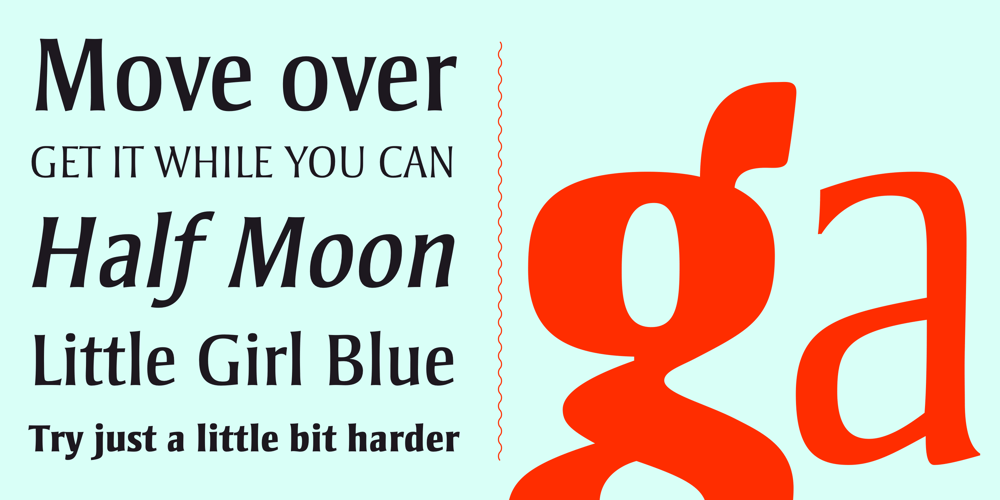
Strayhorn MT Font Family was designed by Michael Harvey and published by Monotype. Strayhorn MT contains 8 styles and family package options. Strayhorn is a sans serif development of the popular typeface family, Ellington. Although classified as a sans serif, the Strayhorn font family has markedly flared stems and calligraphic terminal treatment. A fairly condensed face with vigorous letter shapes, Strayhorn makes an eye-catching display face and an economical, legible text type. The contrast between thick and thin strokes is more apparent than in most sans serif designs, resulting in an open, rather striking appearance on the page. Strayhorn is ideal for use in advertising, flyers, labels and packaging. It will also make a refreshing alternative to the more monotone sans serifs used in magazines, periodicals, newsletters etc.